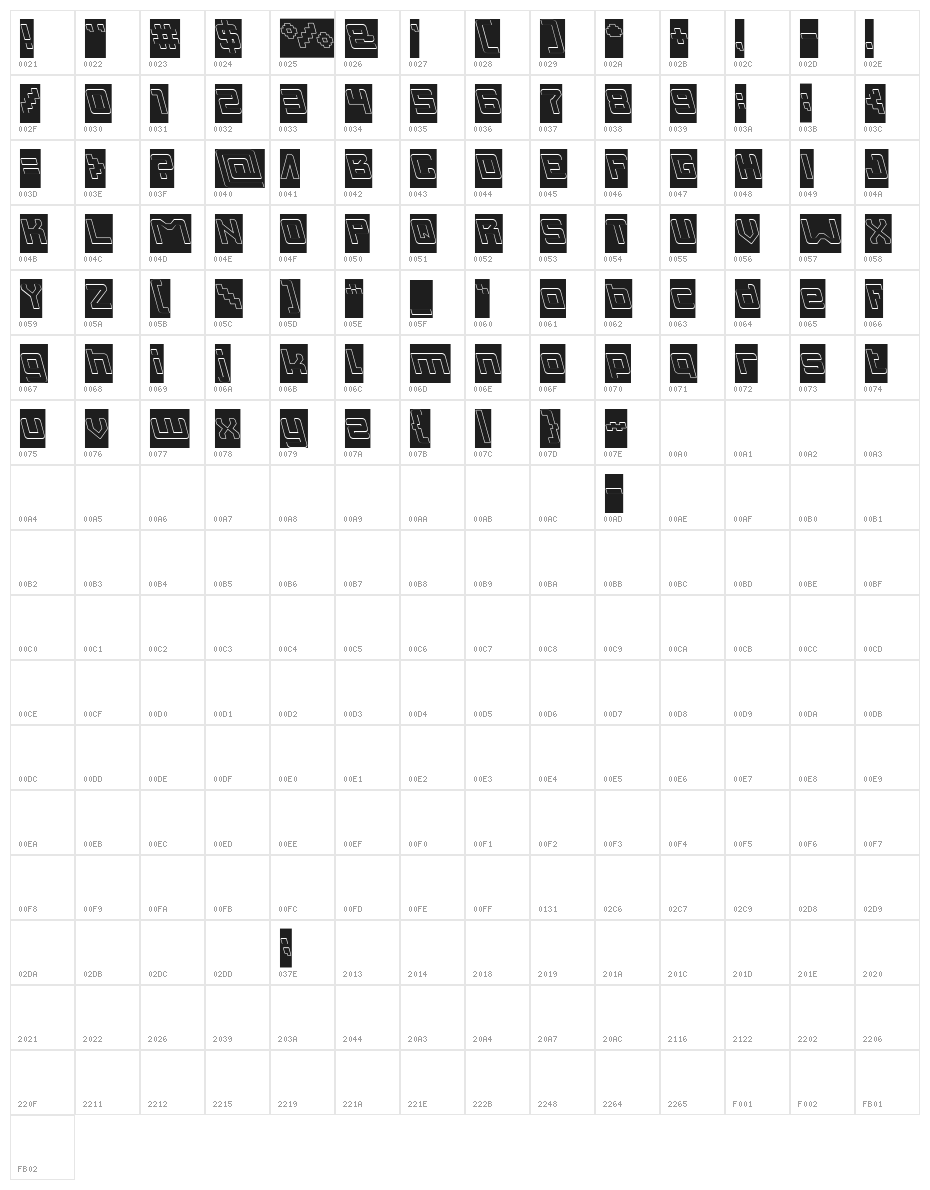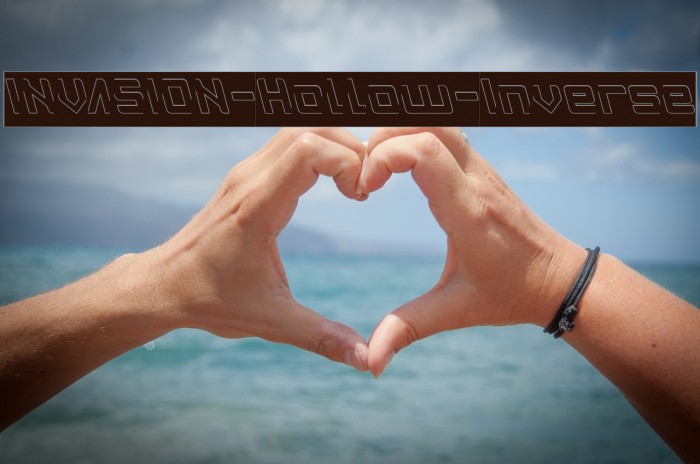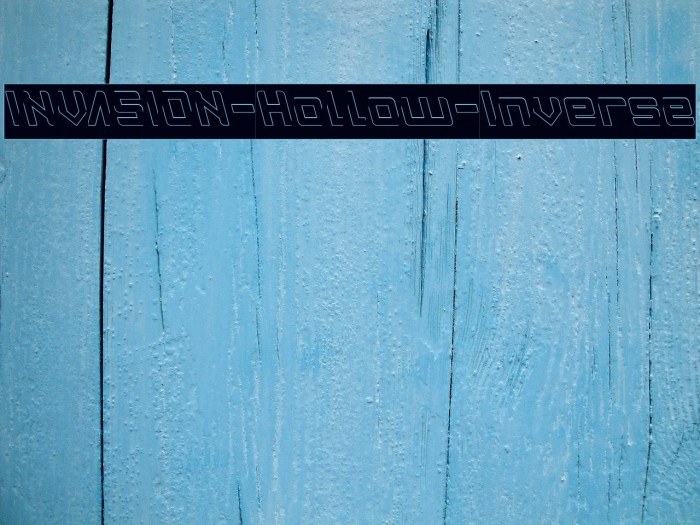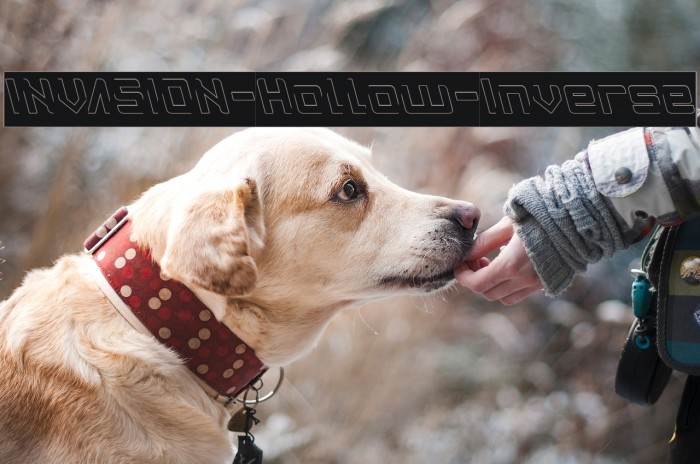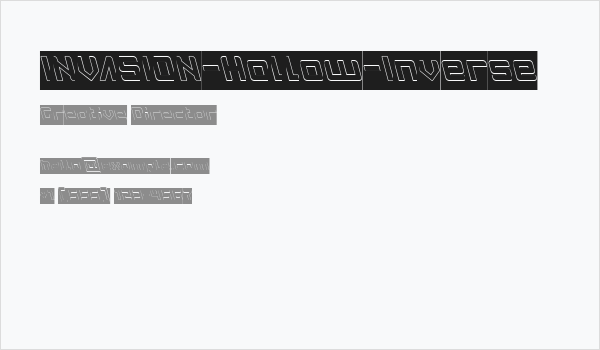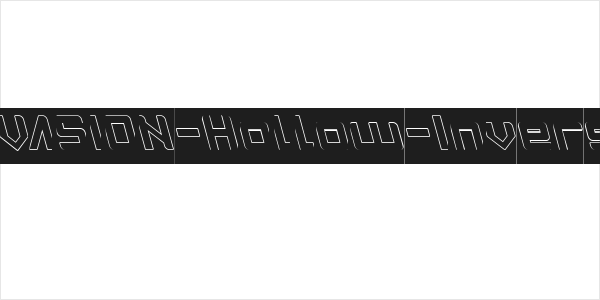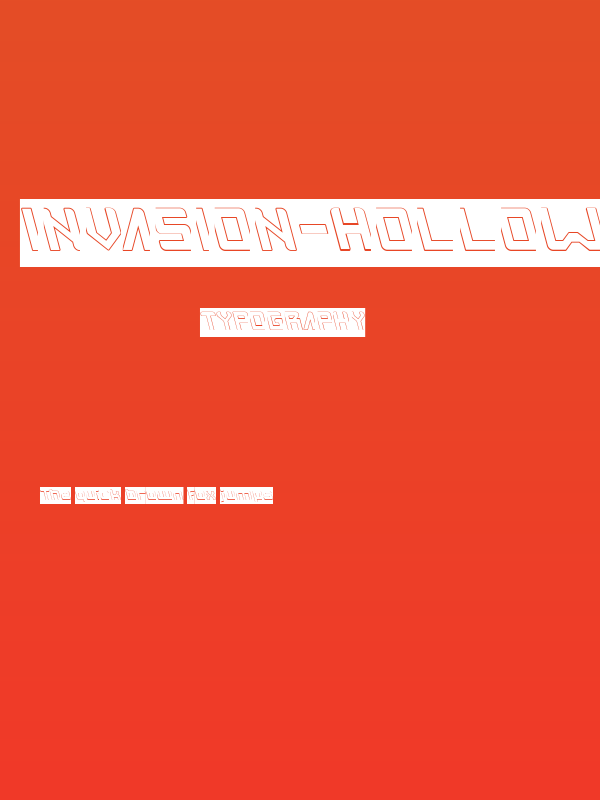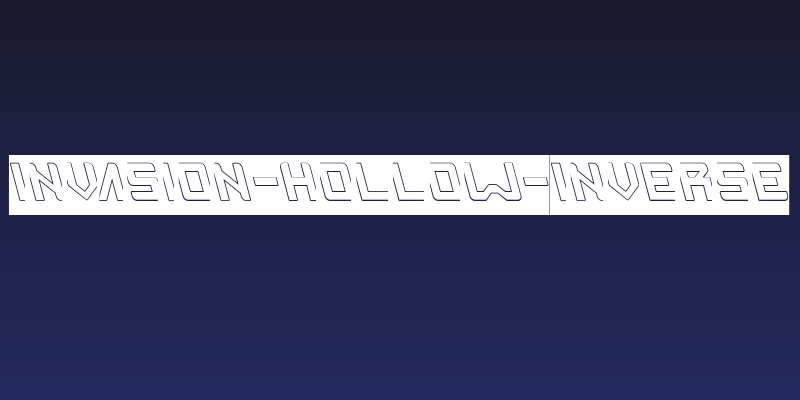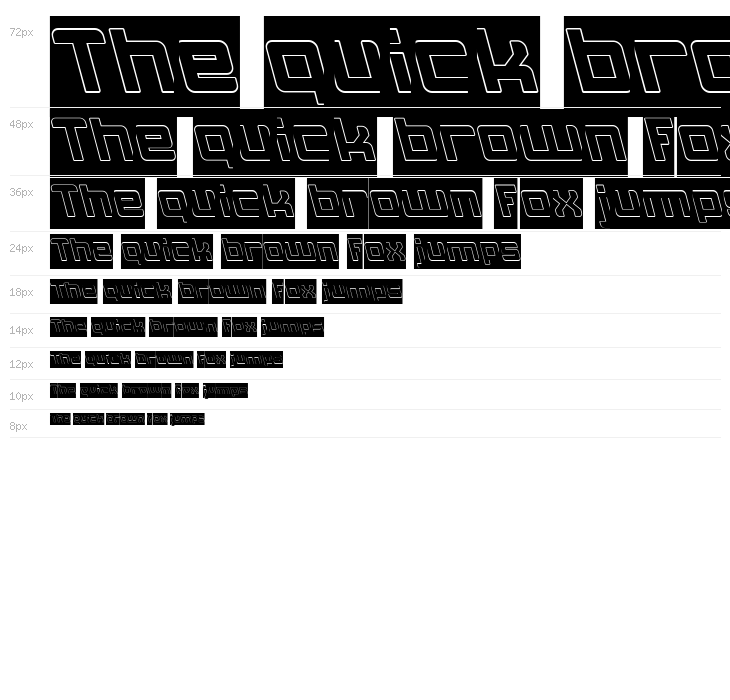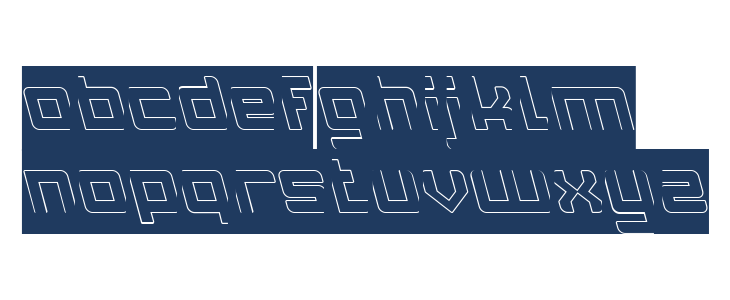
INVASION-Hollow-Inverse Font
INVASION-Hollow-Inverse Description
This font features a bold, hollow design with a futuristic and geometric aesthetic. The characters are outlined, creating a striking visual effect that emphasizes their angular and structured form. The uppercase and lowercase letters maintain a consistent style, with sharp edges and a uniform thickness throughout. Numbers and special characters follow the same design principles, ensuring a cohesive look across all elements. The font's hollow nature gives it a unique, modern appearance that stands out in any design context.
| Proposed Projects | Ideal for sci-fi themed projects, video game titles, posters, and branding that requires a modern and edgy look. |